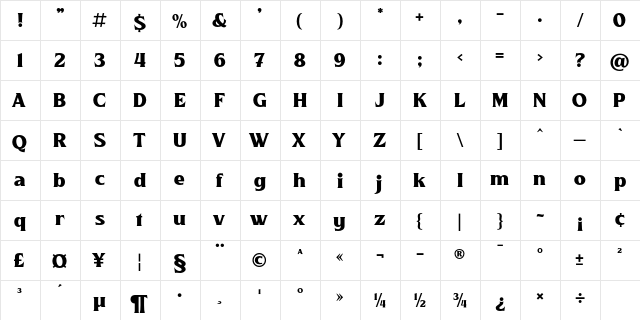
Killarney Regular
| Foundry | Twicolabs Fontdation |
| Designer | Twicolabs Fontdation |
Killarney takes a measured approach to typography — its balanced proportions and neutral character make it a reliable workhorse for both digital and print work.